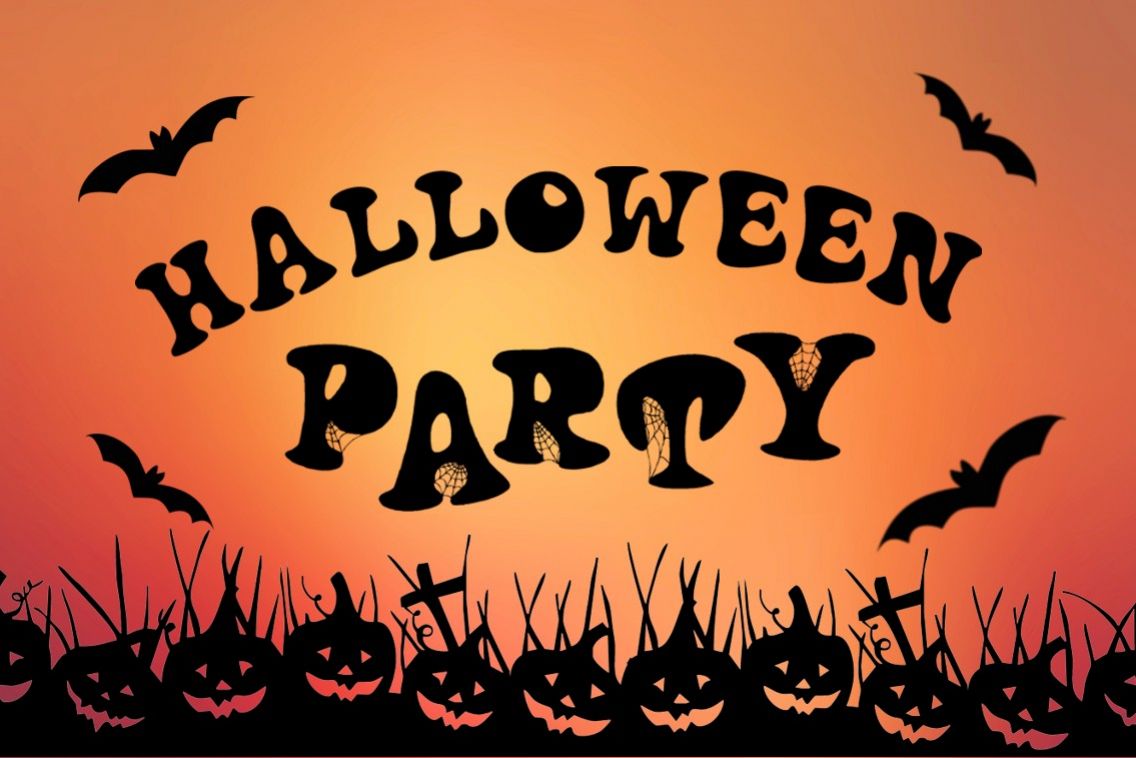
Harty Font
Harty-Regular
IIntroducing Harty hand drawn typeface.
Use lowercases for simple capital letters and UPPERCASES for spiderweb letters.
Harty Font